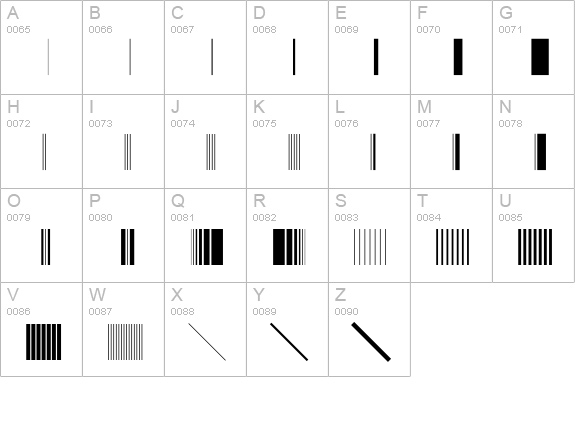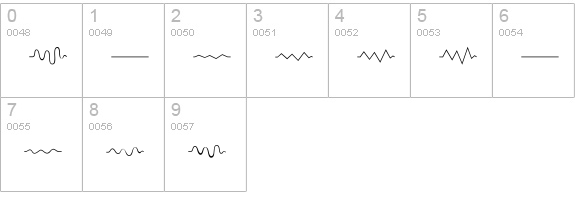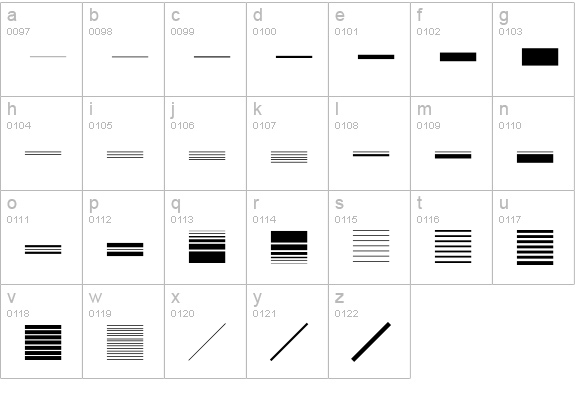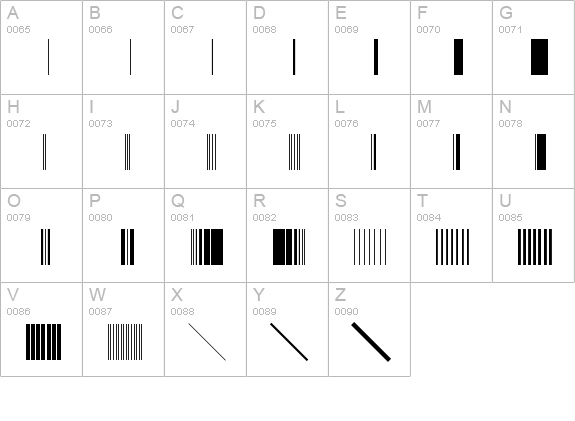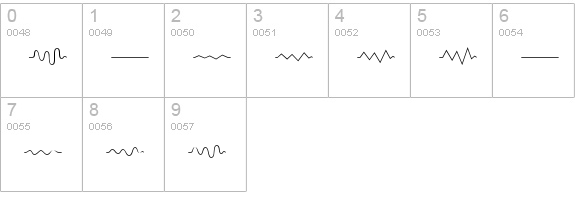
BunchOLines Font Details
BunchOLines font is a unique and versatile typeface that exudes creativity and elegance. Its charming and playful design features a variety of decorative lines that come together to form a visually stunning and eye-catching look. This font is perfect for adding a touch of whimsy and sophistication to any project, whether it be for branding, advertising, or design work. And the best part? BunchOLines font is completely free to download at FontsMarket.com. With its extensive character set and stylish aesthetic, this font is sure to make a bold statement and leave a lasting impression. Don't miss out on the opportunity to enhance your designs with this beautiful and distinctive typeface.